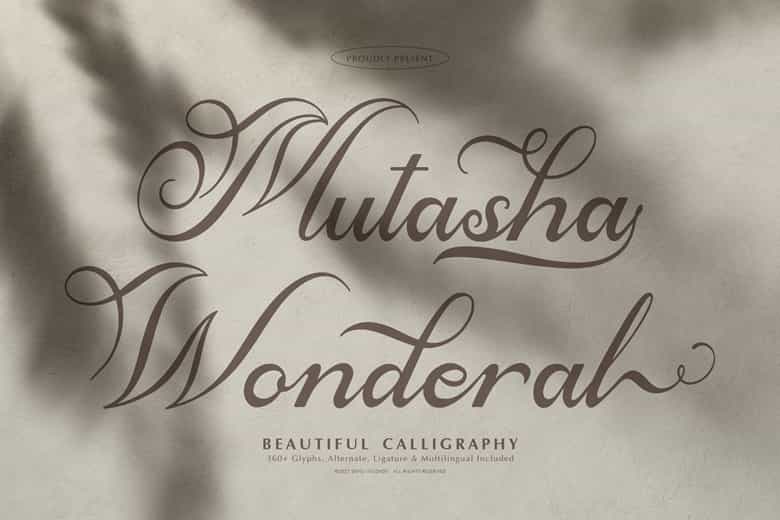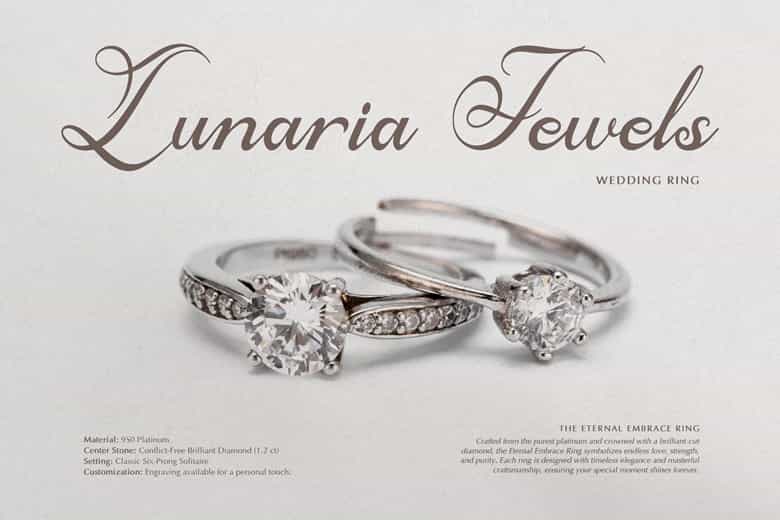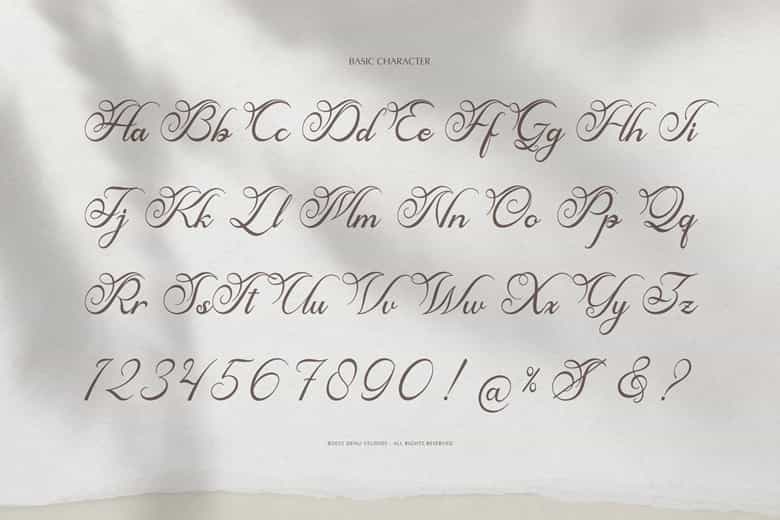
Mutasha Wonderal is an elegant and modern calligraphy script font, from Denustudios, It’s suitable for any projects such as: logos, branding projects, homeware designs, product packaging, mugs, quotes, posters, shopping bags, t-shirts, book covers, name card, invitation cards, greeting cards, label, special events, and all your other lovely projects.